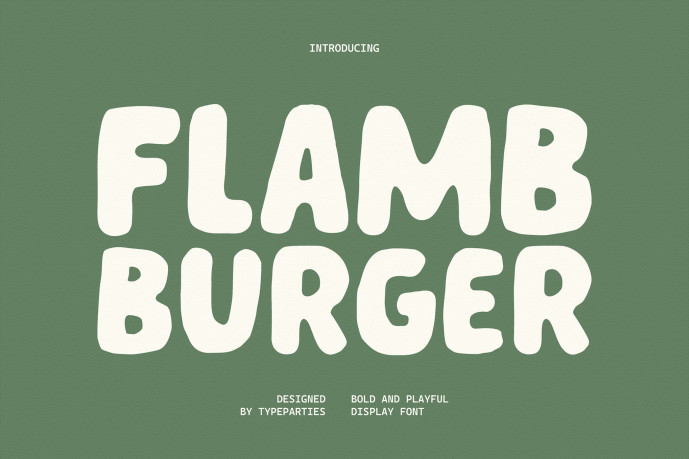
Flamb Burger Font
Designer: typeparties
Flamb Burger Font is a bold and playful display typeface that embraces imperfection and authenticity. With its chunky, hand-drawn shapes and organic curves, this typeface injects character and personality into any project.